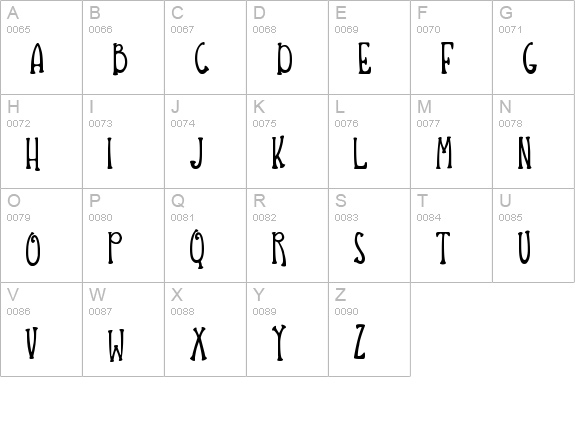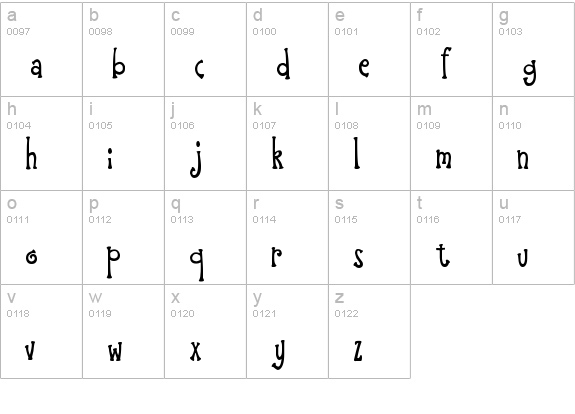
Hiccups Font Details
Introducing Hiccups font - a playful and whimsical typeface that is perfect for adding a touch of fun to your projects. The unique design of this font features quirky curves and charming characters that will make your text stand out. Whether you're working on a poster, invitation, or social media graphic, Hiccups font is sure to bring a smile to your audience. Best of all, Hiccups font is completely free to download at FontsMarket.com. Simply head over to the website and grab this delightful typeface to use in your designs. With its free availability, you can add a touch of joy to your creations without breaking the bank. Don't miss out on the opportunity to enhance your designs with the playful charm of Hiccups font today!